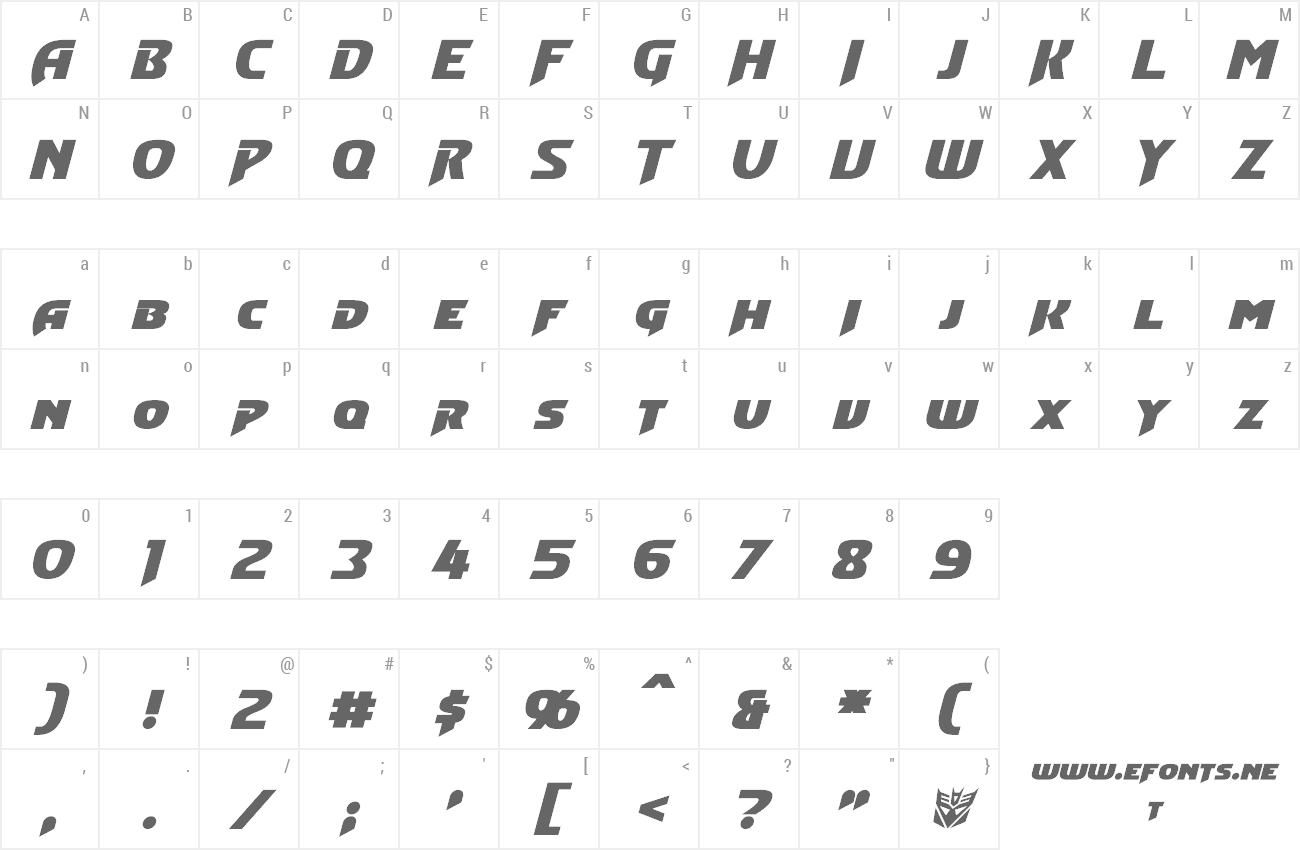
| Font name: | Convoy |
| Author: | Pixel Sagas |
| Note by Pixel Sagas | |
| Based on the logos for "Transformers: Armada" and "Transformers: Robots in Disguise" from Hasbro, Inc. Left and right braces replaced with Autobot and Decepticon insignia, respectively. Bar replaced with Minicon insignia. Tilde replaced with Combatron insignia. Includes regular and italic versions. |